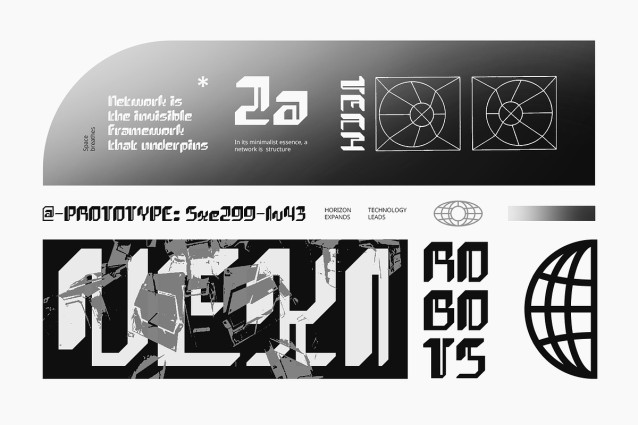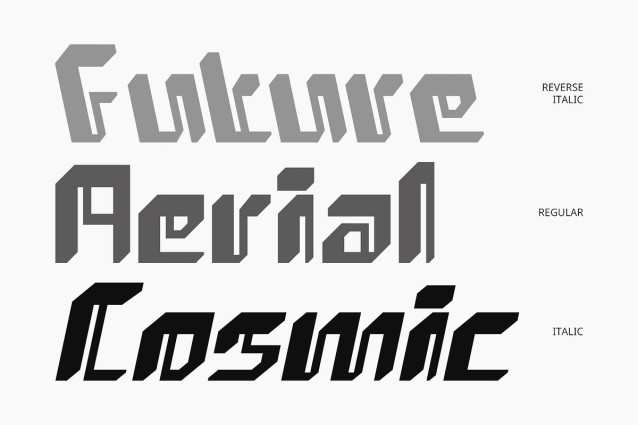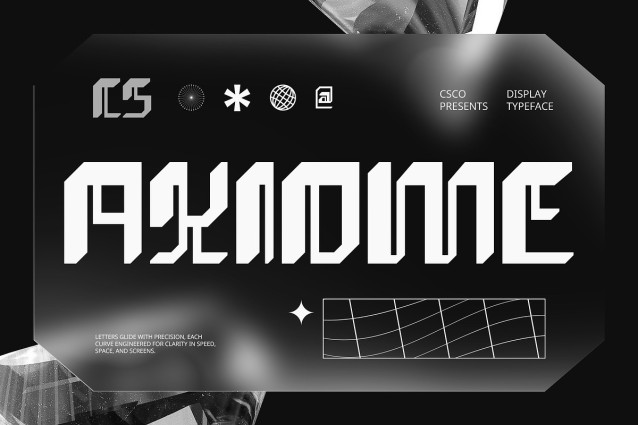
CS Axiome Font
CS Axiome is a modern display font that embraces the spirit of futurism. Featuring sharp lines, geometric forms, and innovative angles, this typeface delivers a sleek and contemporary aesthetic that symbolizes progress and high-tech innovation. Its striking characters are designed to capture attention while evoking a sense of movement, energy, and forward momentum.
Perfect for Tech and Digital Environments Crafted for projects that aim to explore the boundaries of modern design, CS Axiome excels in tech branding, digital interfaces, futuristic posters, gaming visuals, and anything that requires a cutting-edge, digital feel. The font’s distinct letterforms reflect modern sophistication while maintaining clarity and impact across all media.
Clean Yet Experimental Design While CS Axiome is rooted in clean typographic principles, its futuristic curves and angles push the boundaries of traditional display fonts. The result is a unique fusion of functionality and experimental form, offering creative flexibility while maintaining a coherent, modern structure.
Stand Out with a Futuristic Statement Ideal for bold headlines, logos, UI/UX designs, and visual identities, CS Axiome provides a strong, modern voice. Whether you’re designing for a startup, a digital product, or a conceptual visual campaign, this font helps deliver a statement of innovation and advancement.